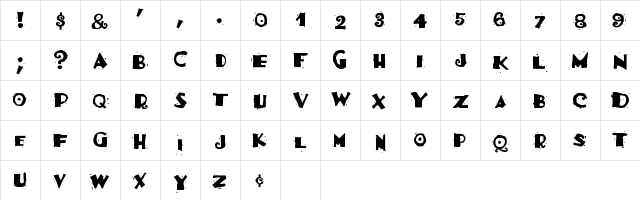
Burrito Regular
Design Context for Burrito
Burrito is a composed and adaptable typeface that performs quietly and consistently across a wide range of design contexts.